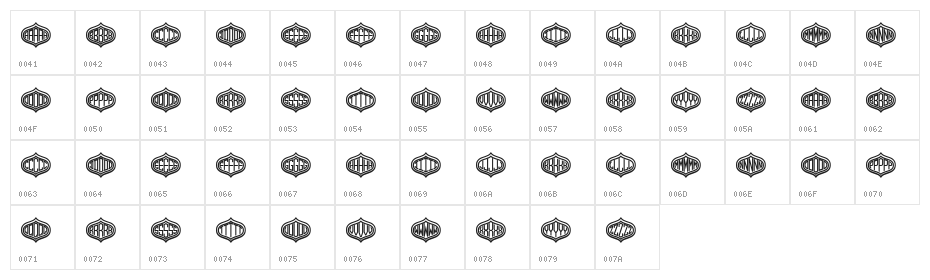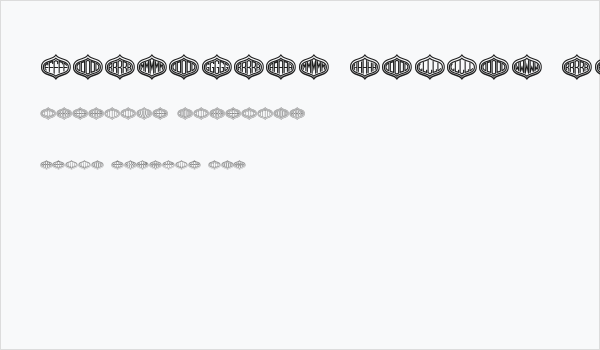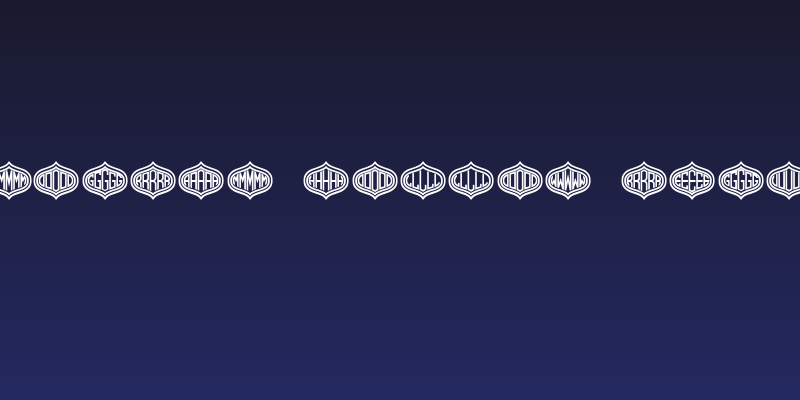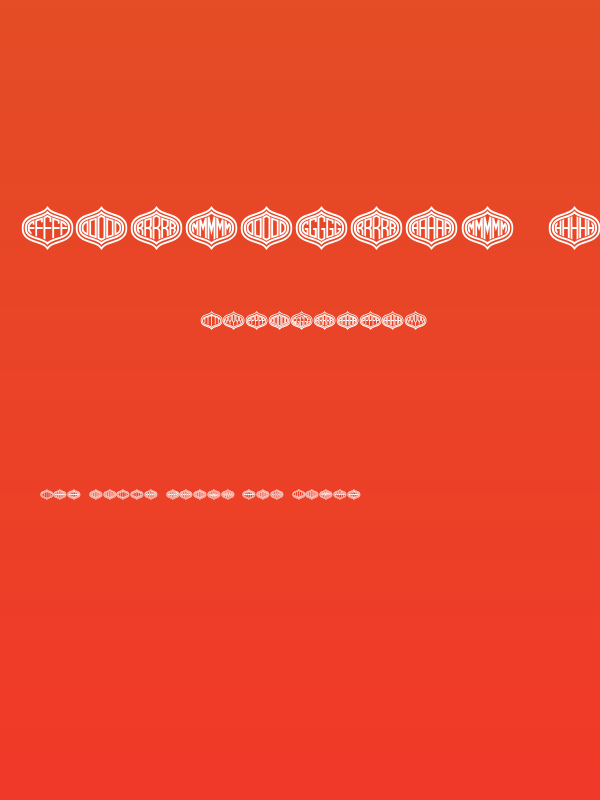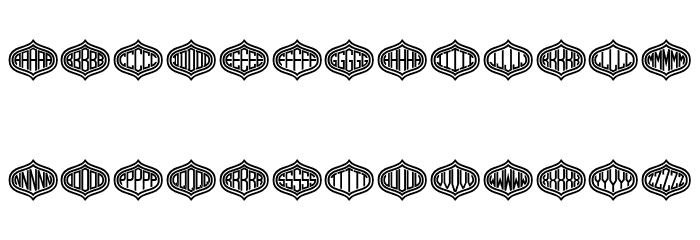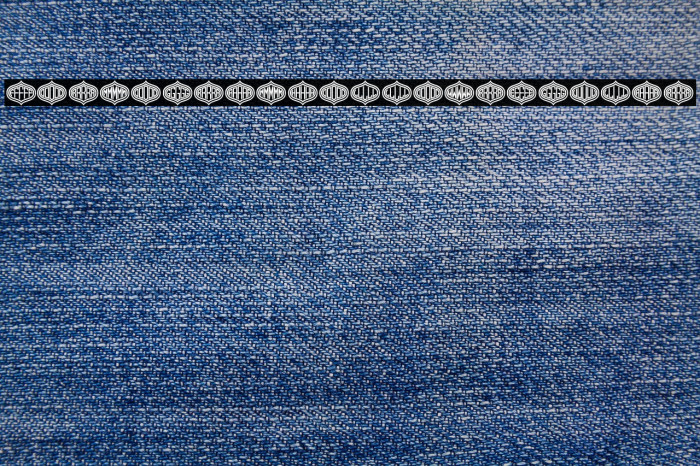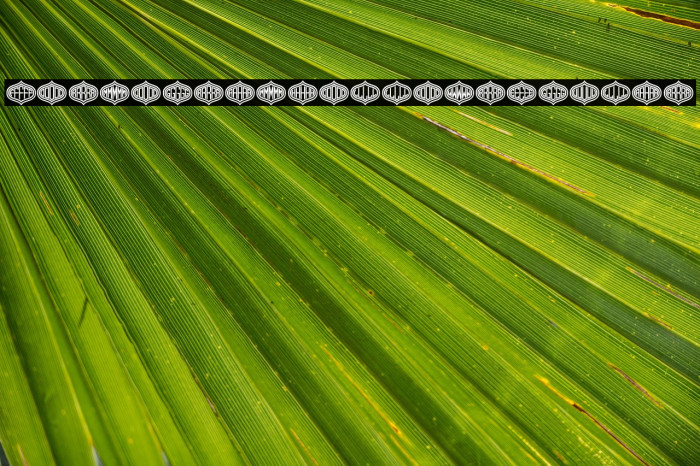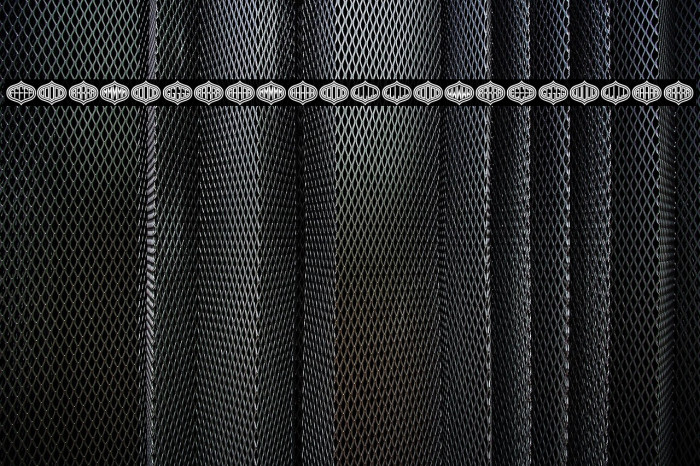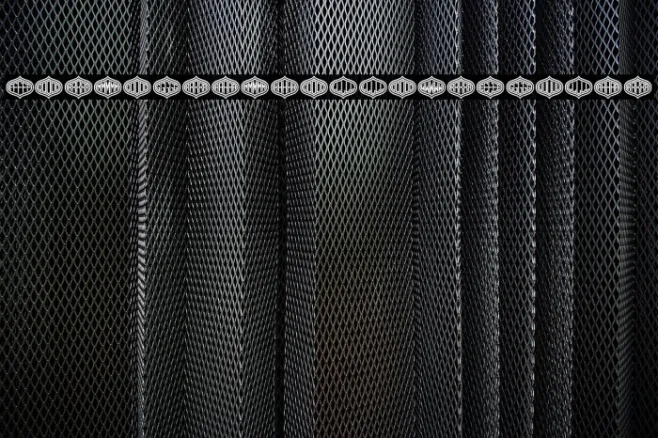
This font features a unique hollow design with each character enclosed in a decorative, shield-like shape. The letters are bold and geometric, creating a striking visual impact. The hollow interiors give a sense of lightness despite the bold outlines. This font is highly decorative, making it suitable for attention-grabbing designs. The uniformity in the shape of the enclosures adds a rhythmic consistency, while the geometric style lends a modern yet vintage feel. The characters are evenly spaced within their enclosures, ensuring readability despite the intricate design.
| Overall Style | Modern, Vintage |
| Proposed Projects | Ideal for logos, branding, posters, and any project requiring a bold, decorative typeface. |